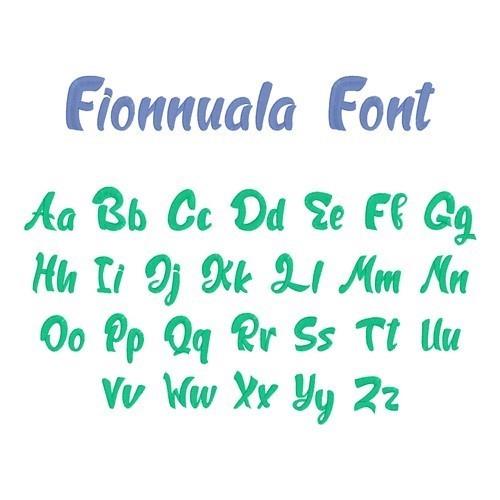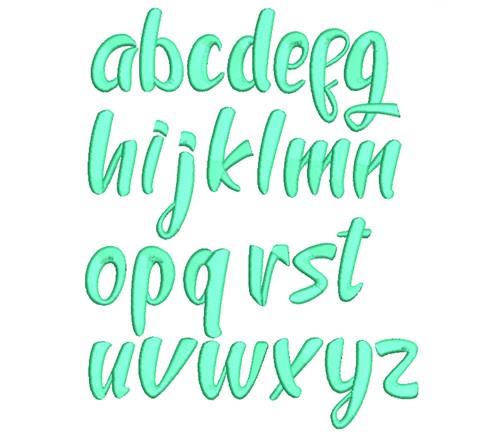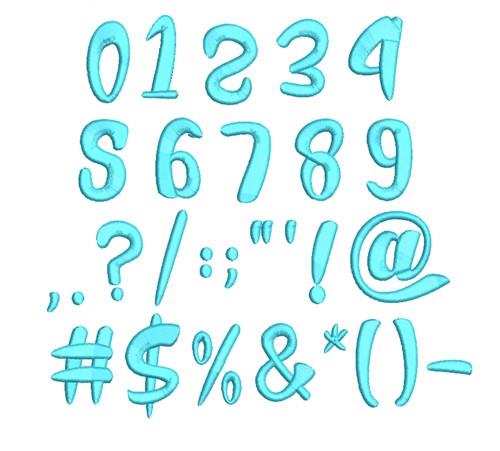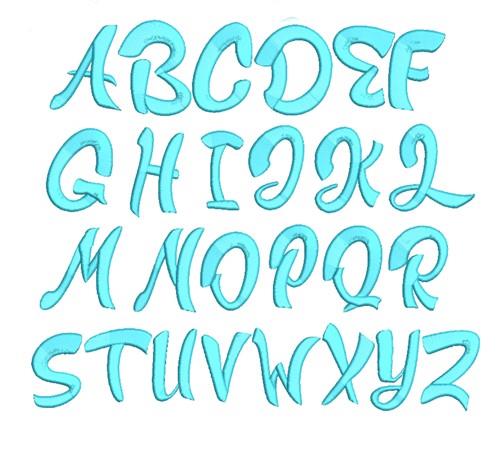
Maya Kreations is happy to present Fionnula Embroidery Font - Playful Script Lettering - PES, DST & 6 formats machine embroidery font which has Playful script machine embroidery font with smooth curves, suitable for cozy projects on pillows or quilts. Available in PES, DST, and 6 other formats for your convenience. included. If you would like to view more embroidery fonts and alphabets please search our embroidery fonts page.